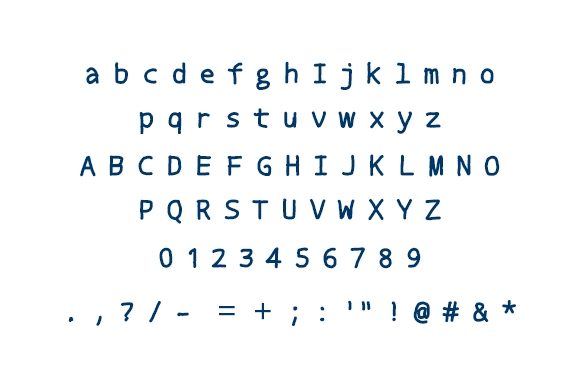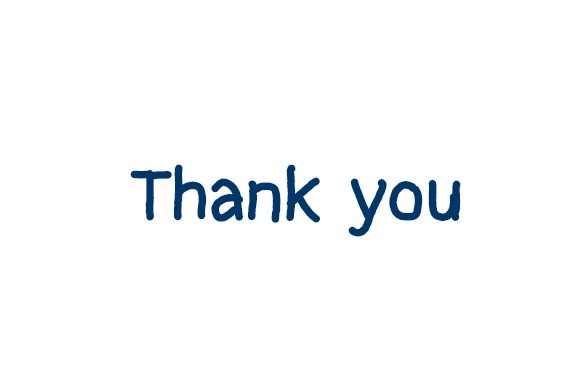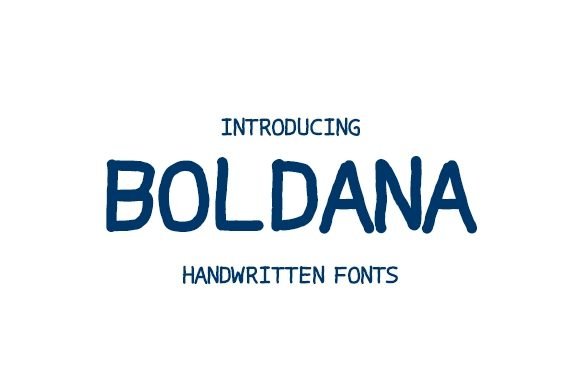
The Birth of a Creative Masterpiece: Introducing the Boldana Font
Have you ever found yourself scribbling down ideas in a notebook, only to realize that the words on the page are more vibrant than the ones on your computer screen? That’s the magic of creativity, and it’s exactly what the Boldana Font is all about. This enchanting handwritten font is designed to bring your most innovative ideas to life, infusing them with a dash of fun, quirkiness, and authenticity.
As a designer, you know the importance of a well-chosen font in making your work stand out. The Boldana Font is a game-changer, offering a unique blend of elegance and playfulness that’s sure to capture attention. With its expressive strokes and whimsical flair, this font is the perfect addition to any creative project, from branding and marketing materials to editorial content and social media graphics.
Boldana Font Key Features
- Size: The font family includes a range of weights from Extra Light to Black, providing flexibility for various design applications.
- Unique Characteristics: Boldana Font features a unique blend of modern and traditional elements, with distinctive letterforms and elegant flair.
- Language Support: Boldana Font includes comprehensive language support, covering Latin, Greek, and Cyrillic scripts, making it suitable for global design projects.
- Scalability: The font is designed to be highly scalable, ensuring that it remains legible and visually appealing at various font sizes and resolutions.
Review of Boldana Font
When I first laid eyes on the Boldana font, I was immediately drawn to its unique, elegant design. ✨ The subtle curves and bold lines make it perfect for adding a touch of sophistication to any project. The font’s versatility allows it to be used in a variety of contexts, from fashion branding to editorial design.
The Boldana font is well-suited for titles and headings, where its bold lines can really shine. ✨ It’s also a great choice for body text, especially when used in conjunction with a clean sans-serif font. However, I would caution against using it for large blocks of text, as it can become overwhelming.
- Unique and elegant design
- Perfect for titles and headings
- Great for fashion and editorial design
- Can be overwhelming when used in large blocks of text
- May not be suitable for small text sizes
Overall, I’m really impressed with the Boldana font. Its unique design and versatility make it a great addition to any designer’s toolkit. With some careful consideration of its limitations, I think it can be a real showstopper in the right project.
Tips for Getting the Most Out of Boldana Font
Use Boldana Font for headlines, titles, and emphasis.
Pair it with a clean and minimalist design for maximum impact.
Experiment with different font sizes and colors to create visual hierarchy.
Boldana Font is ideal for:
Headlines and titles in marketing materials.
Body text in blog posts and articles.
Custom typography in graphic design projects.